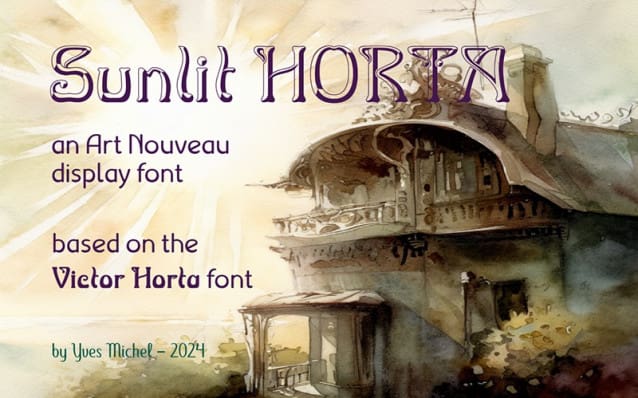
Sunlit Horta Font: The period around 1900 produced the Impressionists in painting and Art Nouveau in architecture and graphic design. I have always admired the Arnold Boecklin typeface, which is a remarkable illustration of this era.
So I wanted to create a font in this spirit, without falling into copying or imitating it too easily. I named it Victor Horta, in tribute to our great Belgian architect, a disciple of Eugène Viollet-le Duc, a precursor of Art Nouveau. From it
I derived the present embossed and illuminated font at the top left